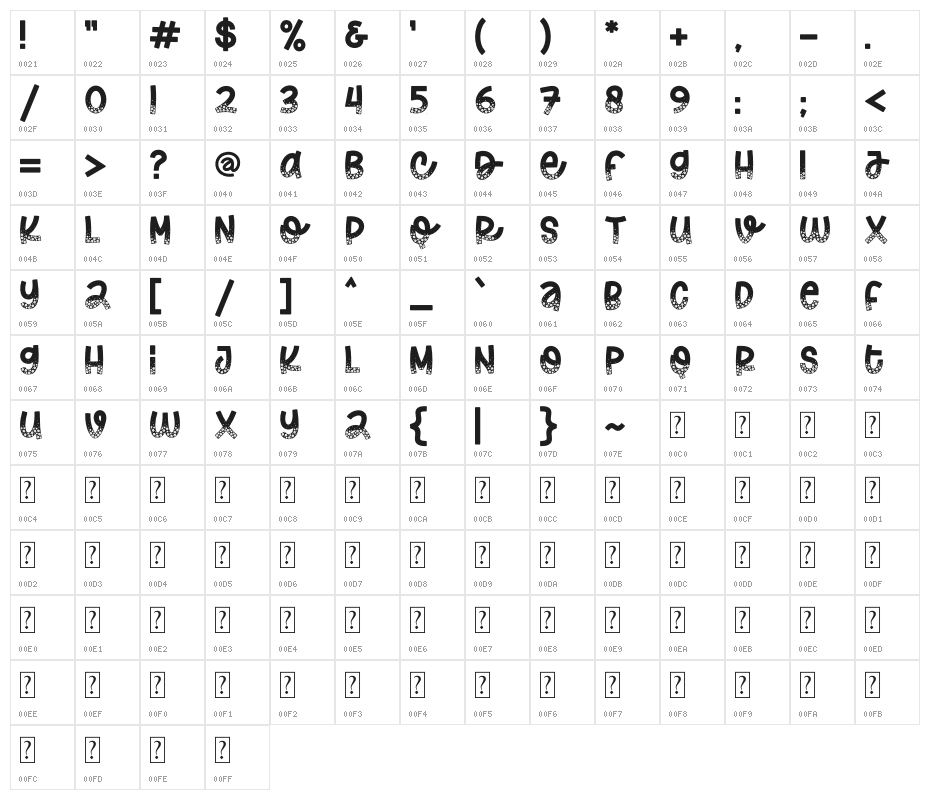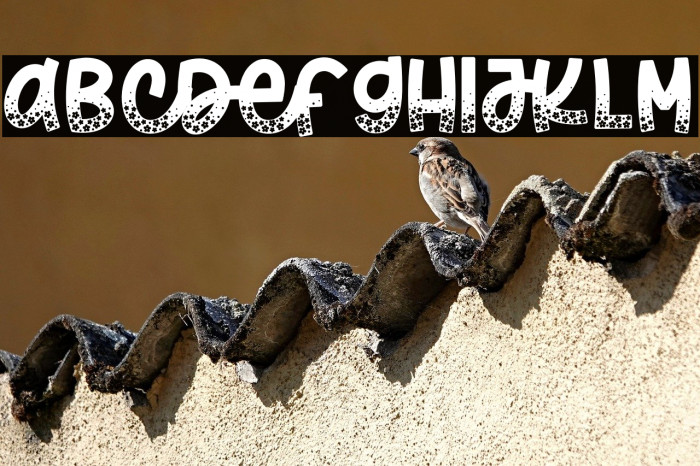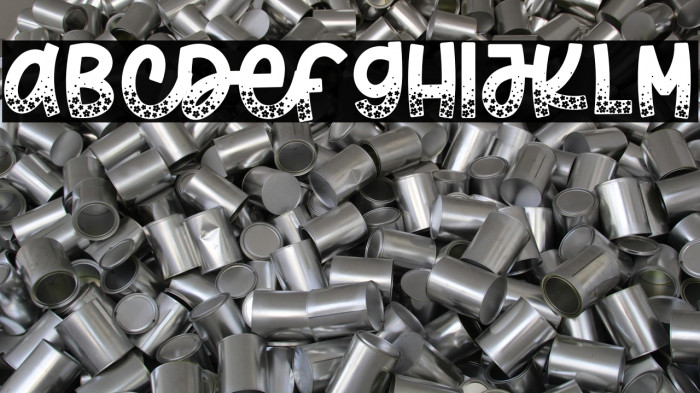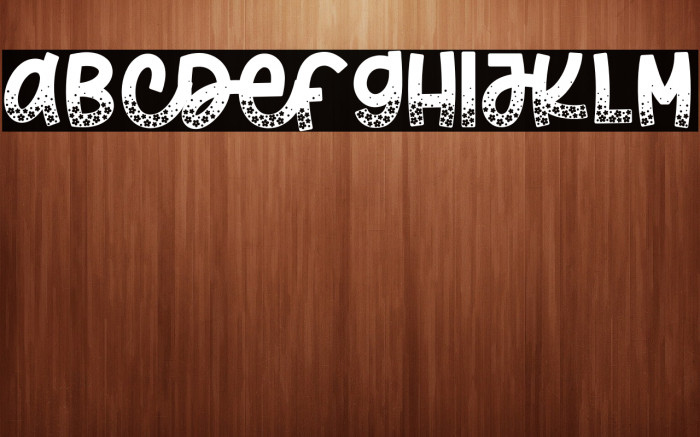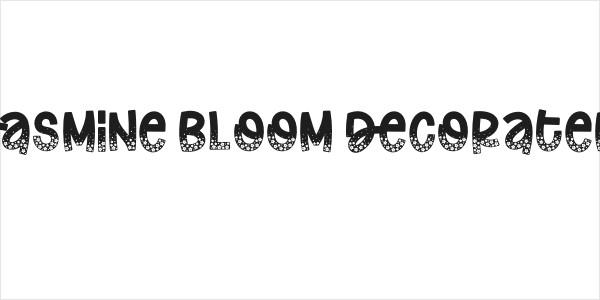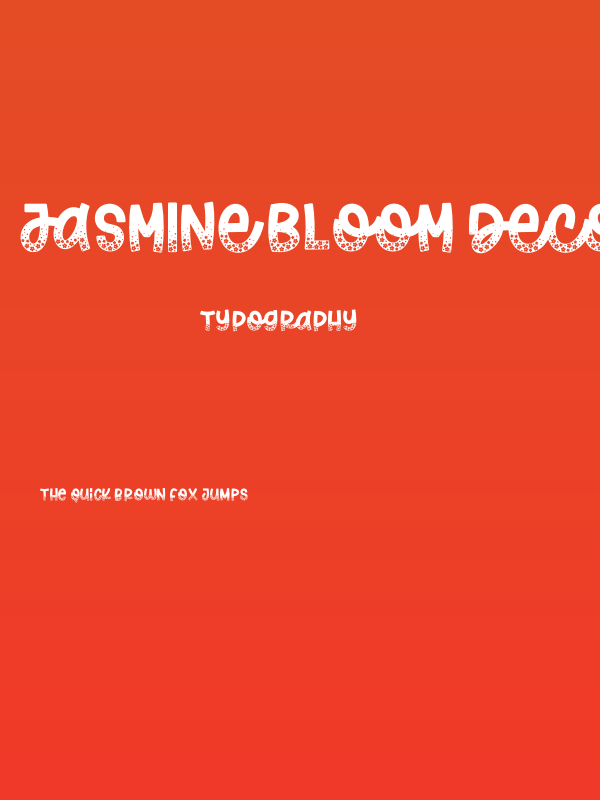
Jasmine Bloom Decorated Font
Jasmine Bloom Decorated Description
This font features a playful and decorative style, characterized by its bold, rounded letters filled with intricate floral patterns. The uppercase and lowercase letters maintain a consistent design, with each character adorned with small flower-like shapes that create a whimsical and artistic appearance. The numbers and special characters follow the same decorative theme, ensuring a cohesive look across all elements. This font's unique design makes it stand out, offering a creative and lively aesthetic that is both eye-catching and fun.
| Proposed Projects | Ideal for children's book covers, playful invitations, greeting cards, and creative branding projects. |